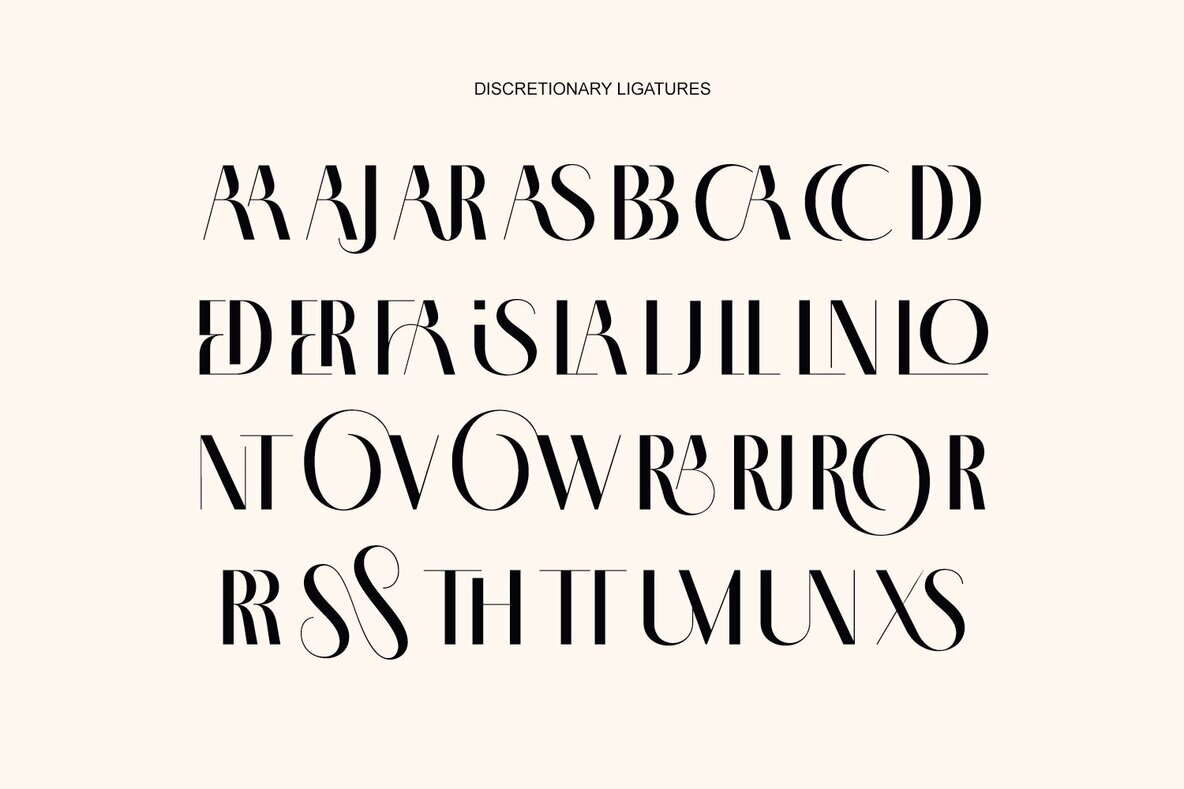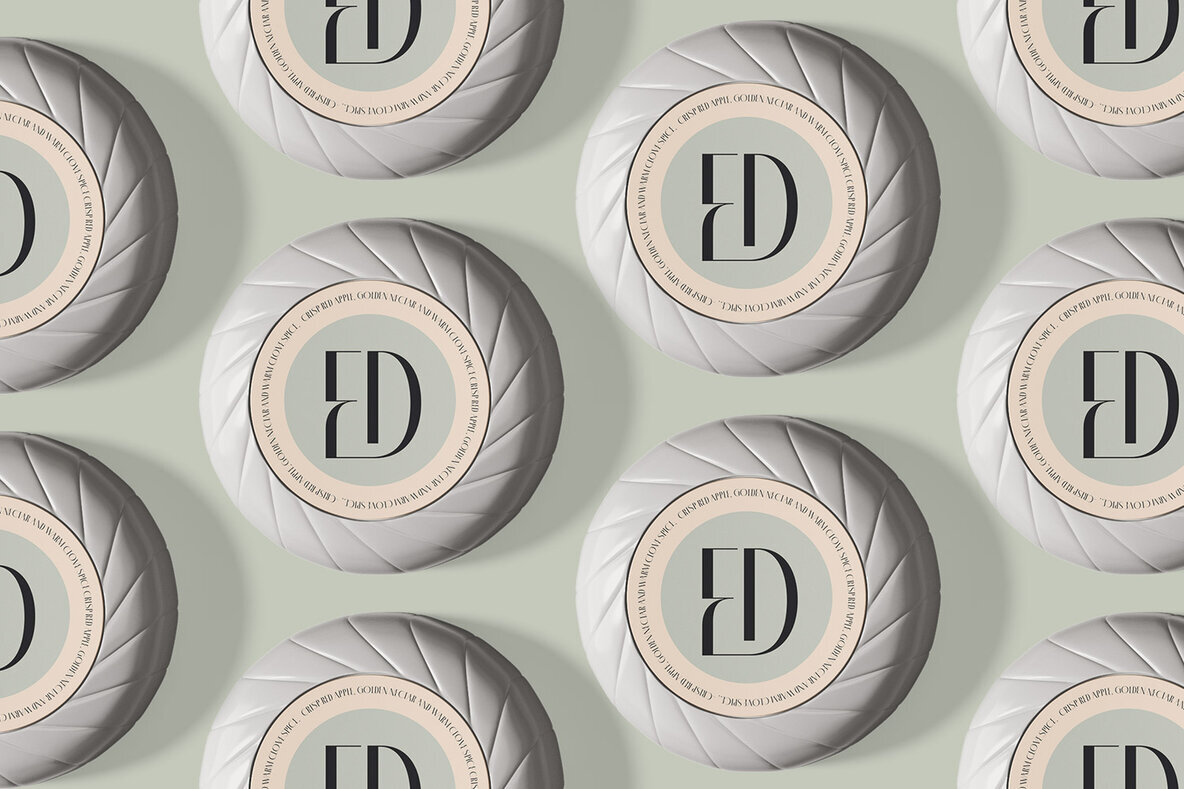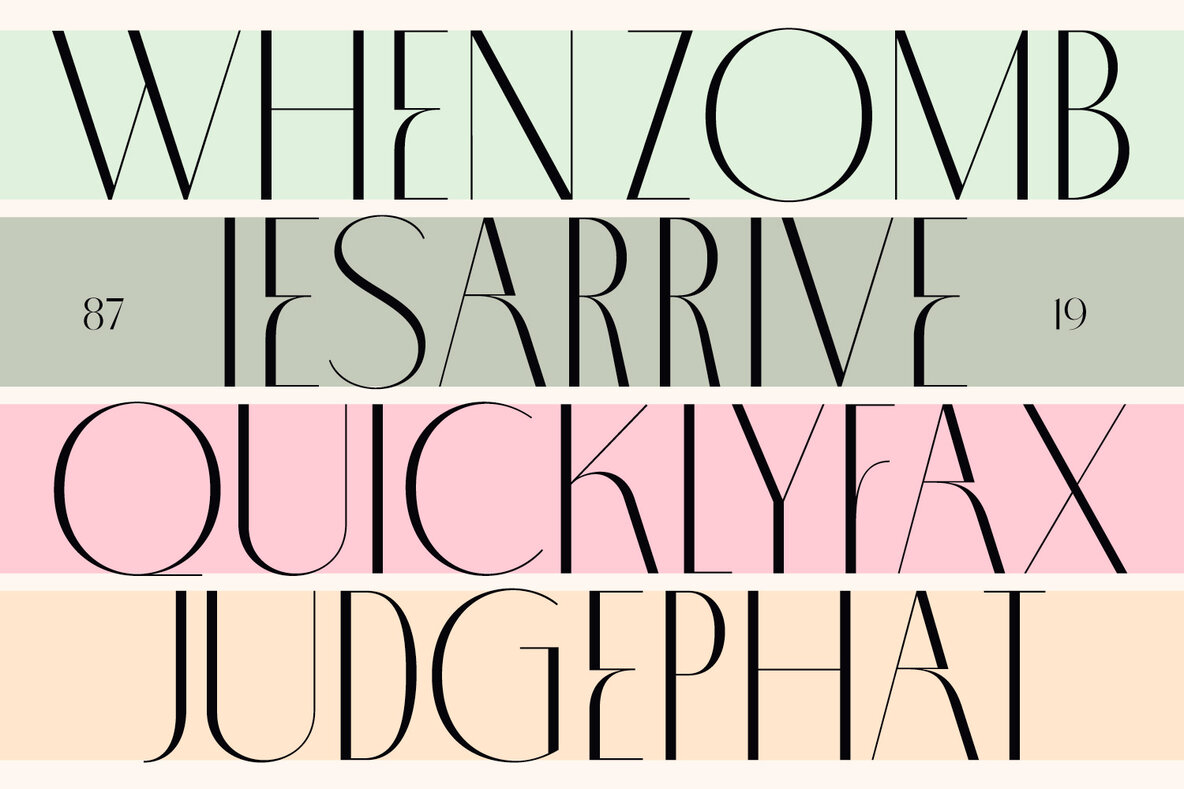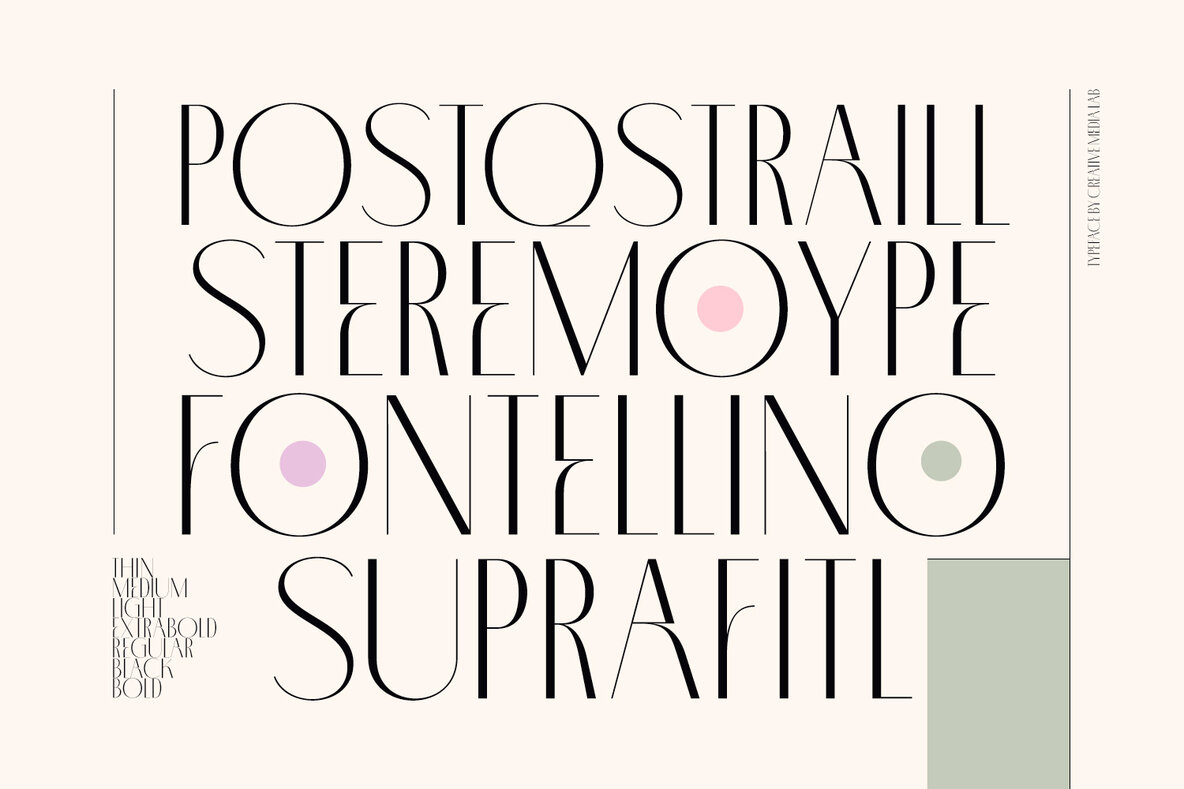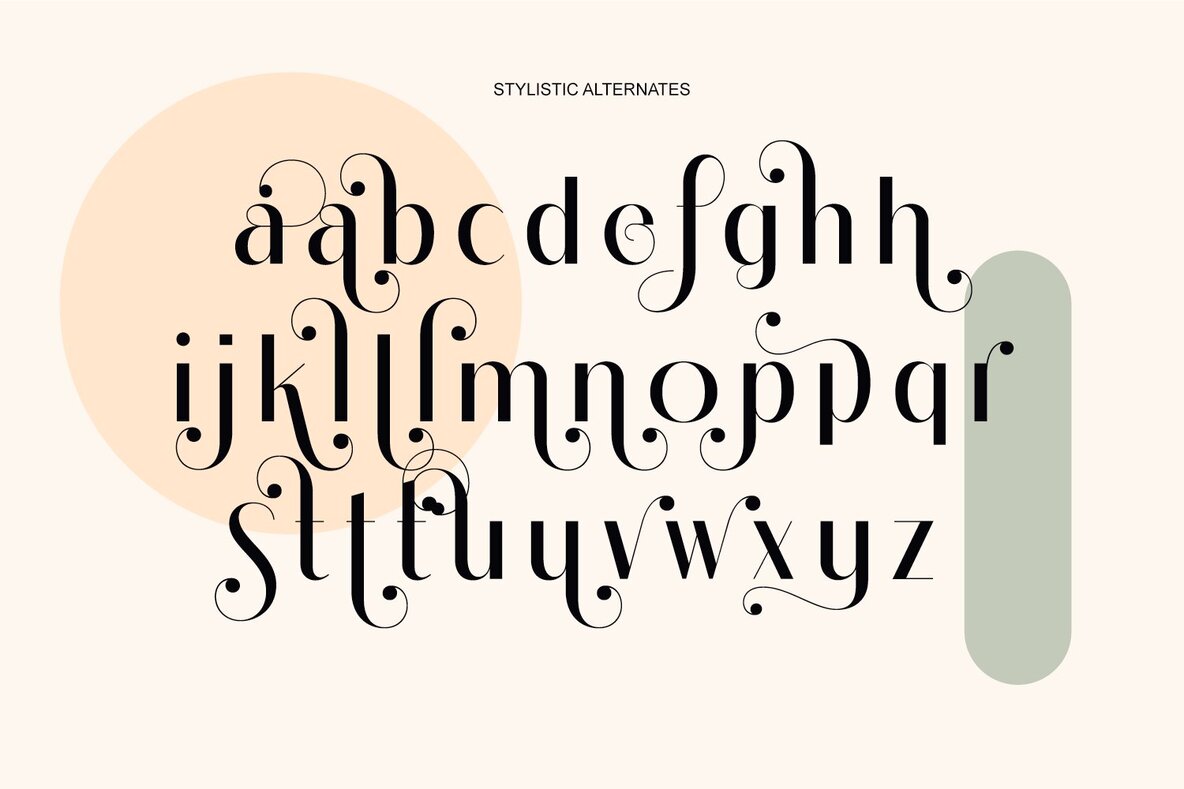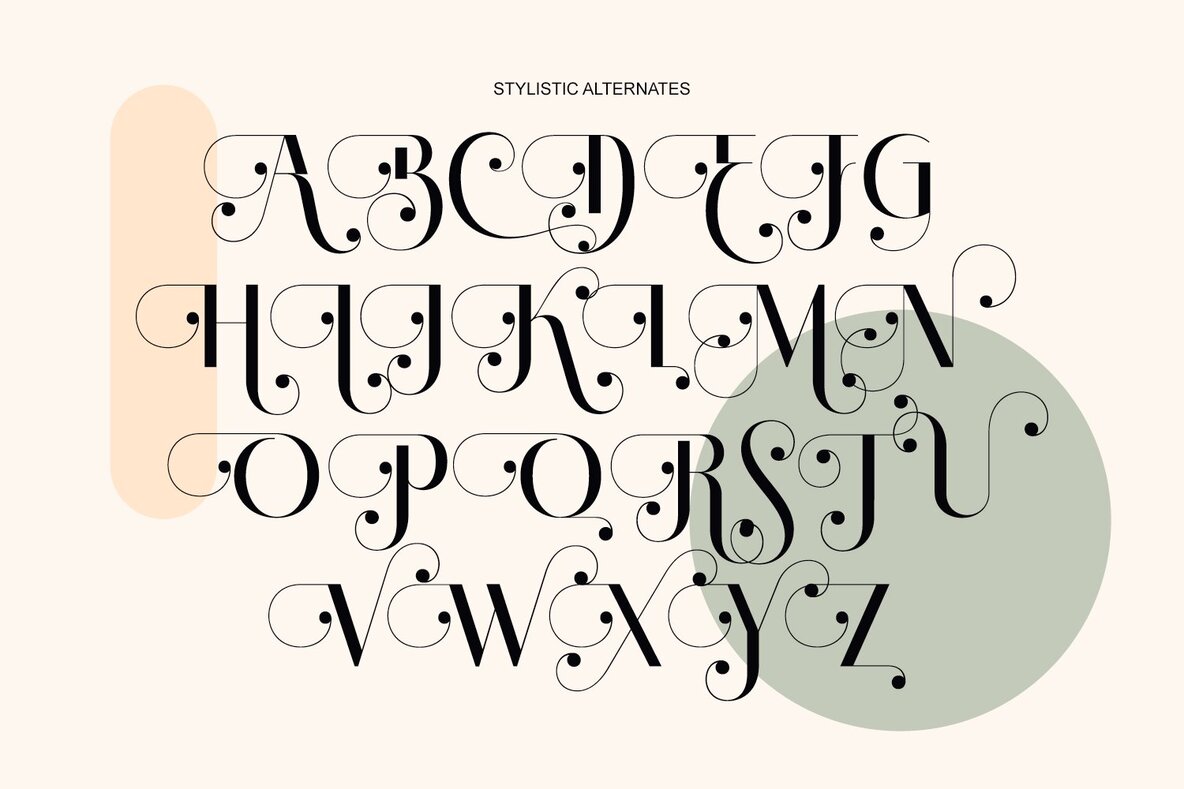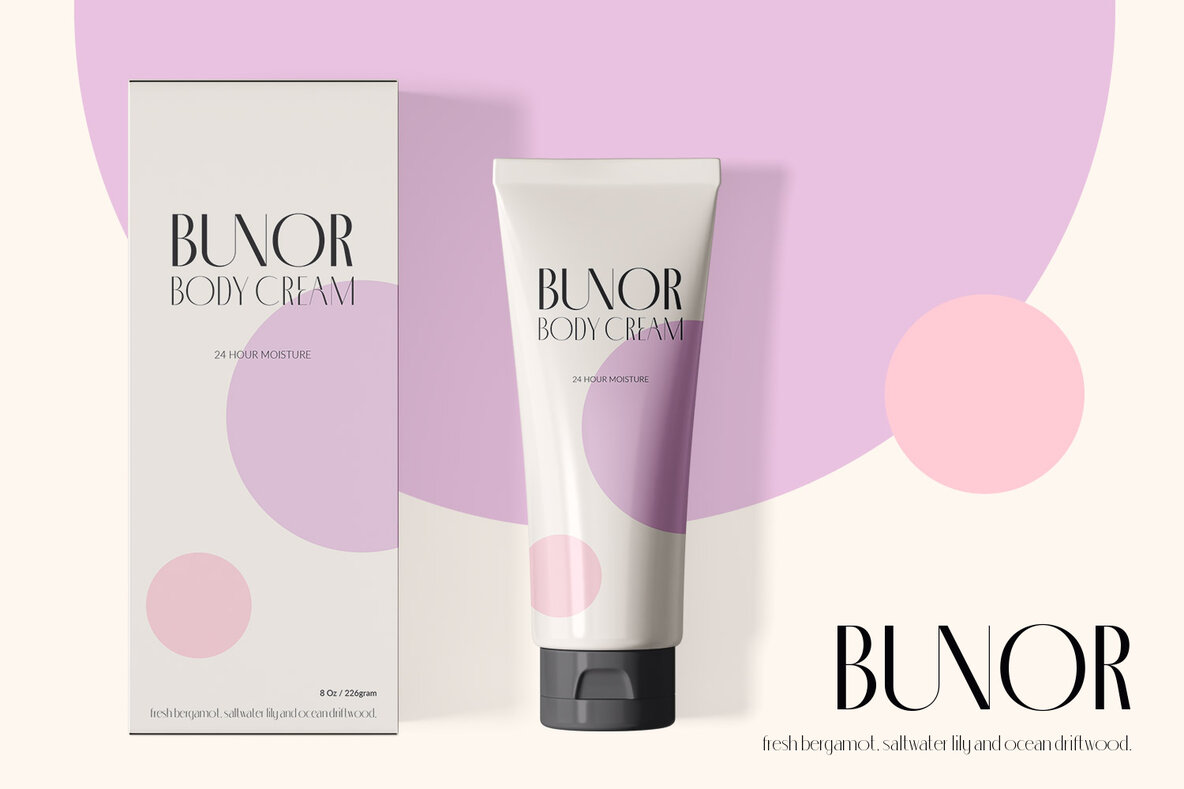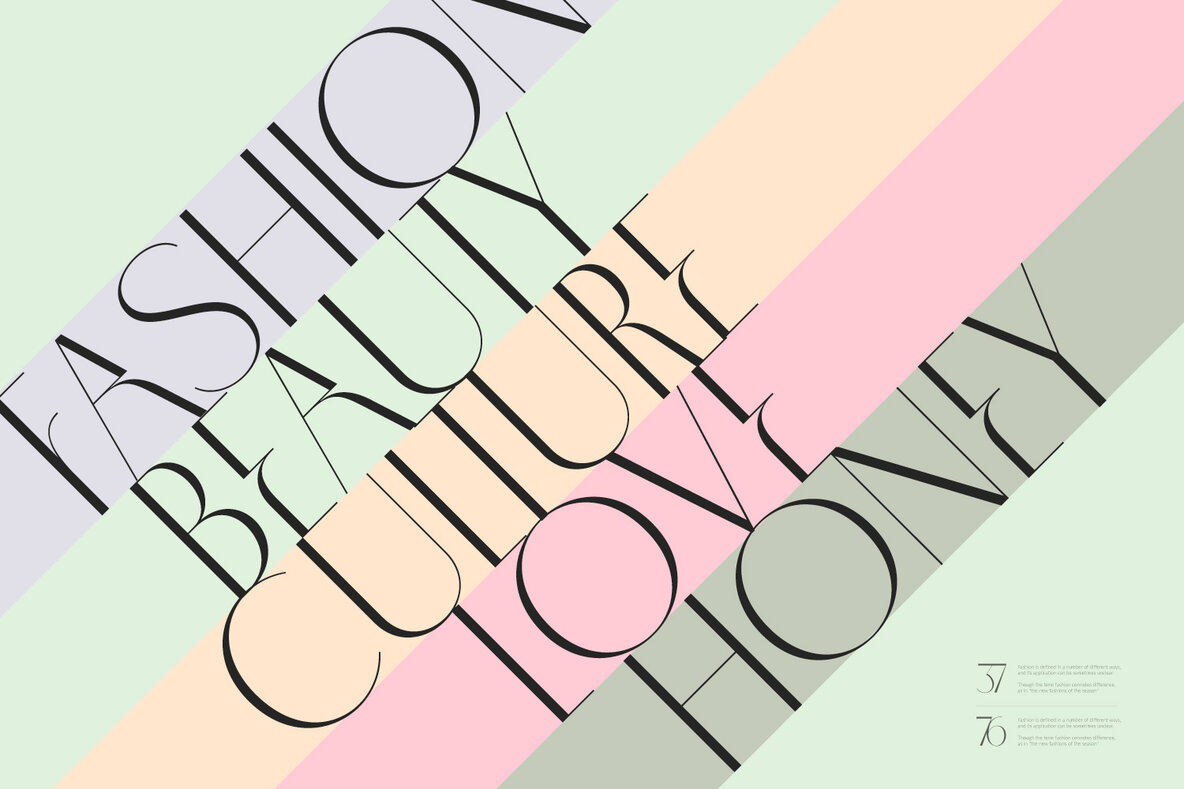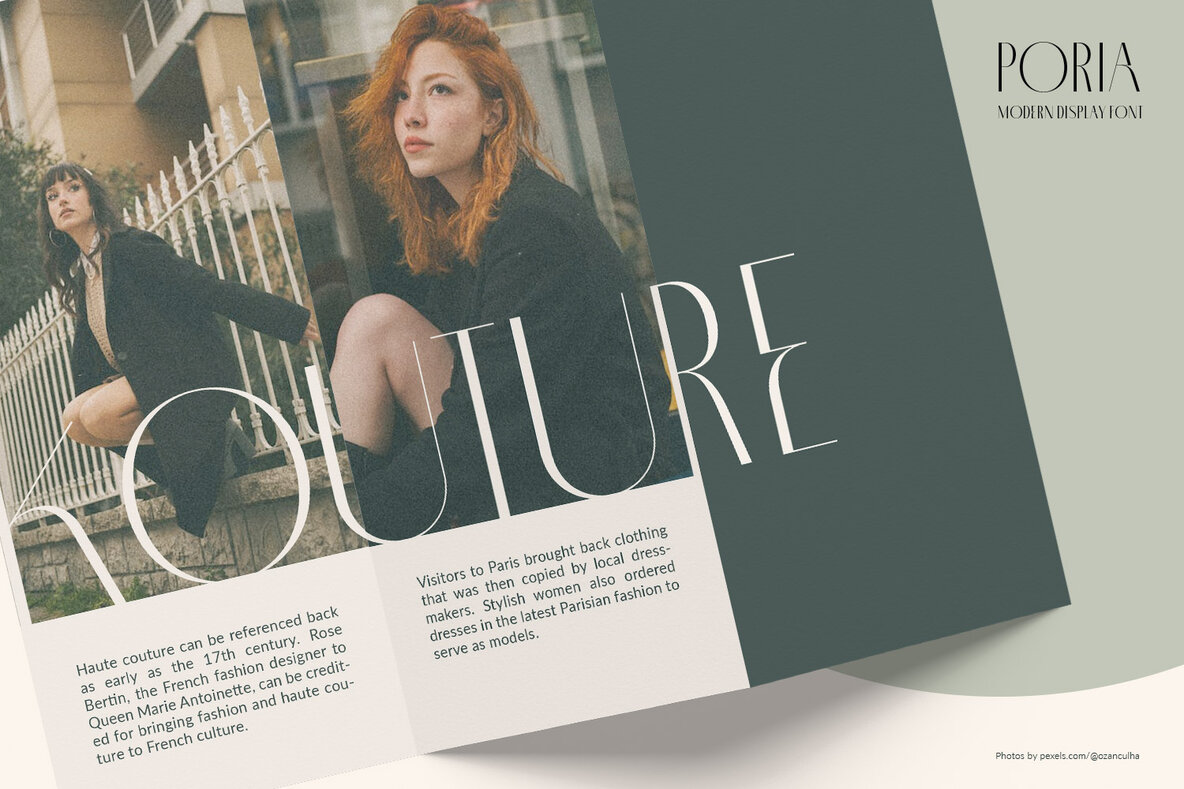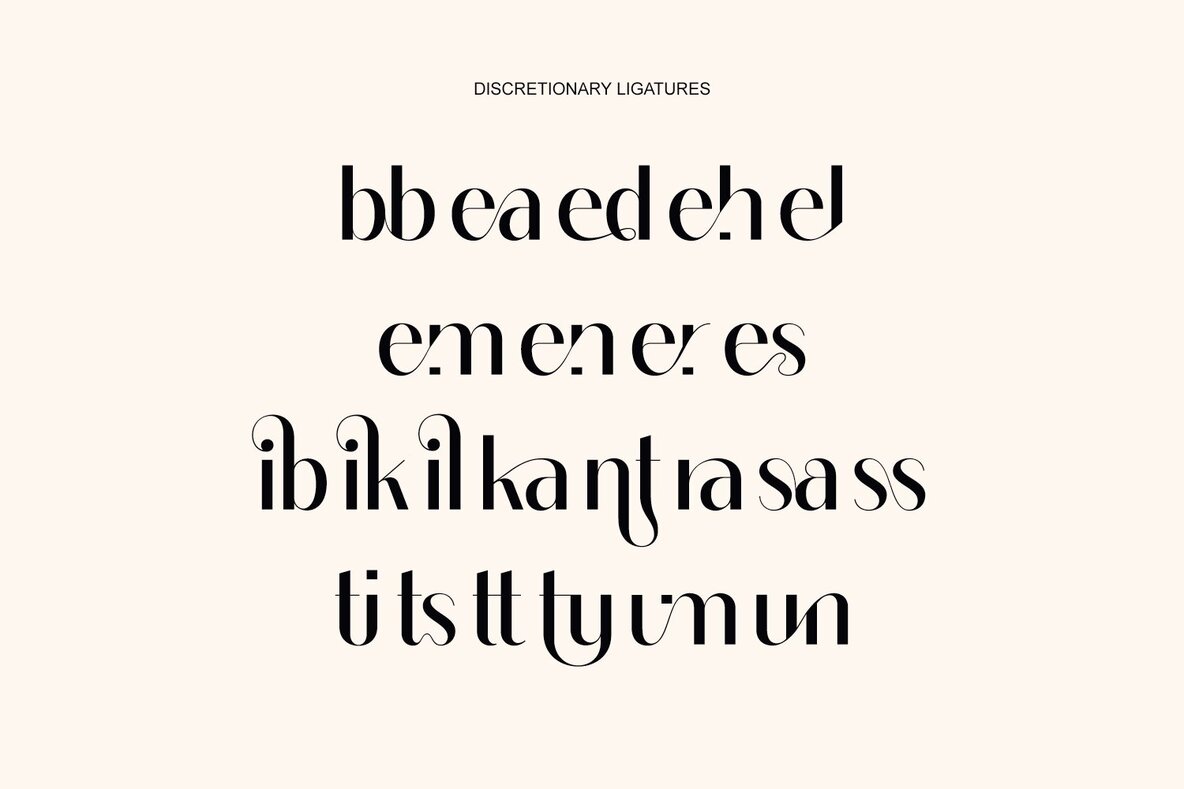
Poria Font
Poria is a modern font with seven weight options, beautiful alternatives and dozens of unique monogram ligatures. The hallmark of Poria is the letter O which is wide compared to the other characters, so it becomes modern and attractive. Poria is suitable as a logo or title for fashion brands, cosmetics, magazines, and many more.